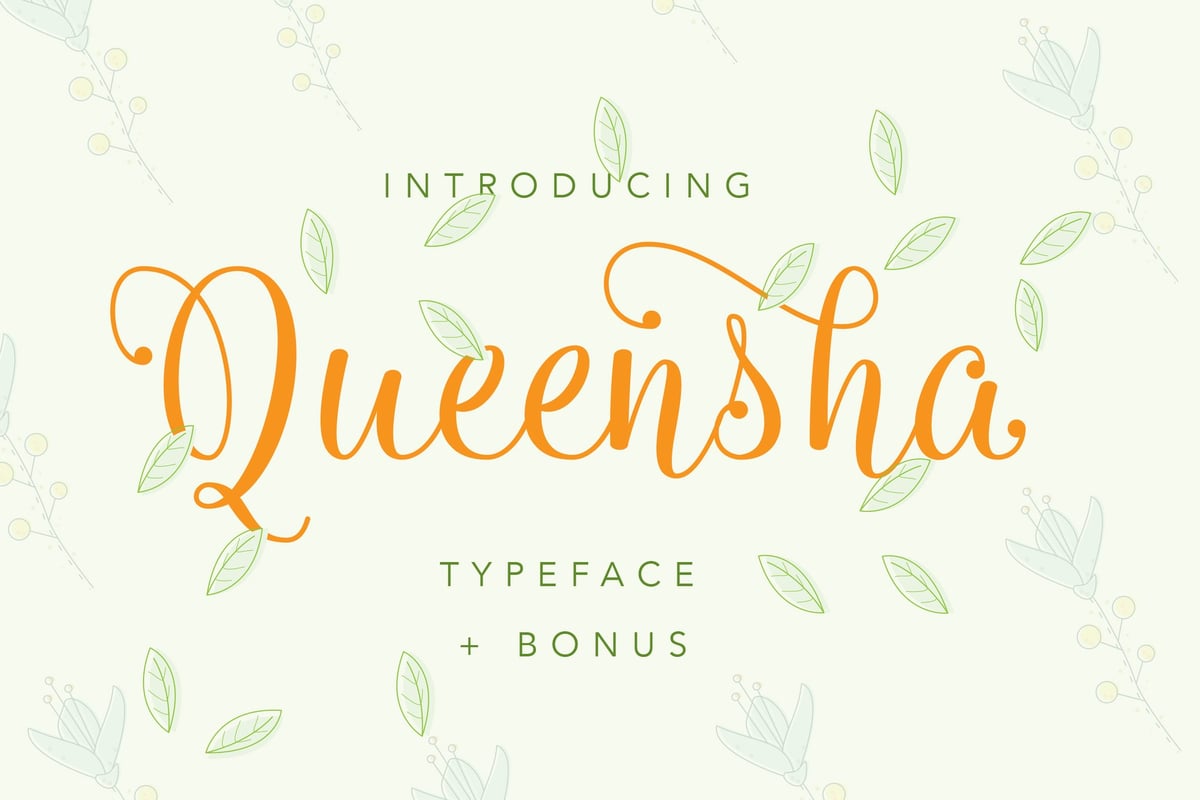
Queensha Typeface
Queensha is a stunning modern calligraphy typeface that blends classic copperplate elegance with contemporary style.
Born from the creative studio of Ianmikraz, Queensha bridges the gap between timeless tradition and modern design sensibility. Its beauty and elegant touch make it instantly versatile for a wide range of creative projects — from apparel branding to greeting cards and everything in between.
Packed with expressive character, Queensha features an impressive 350 glyphs and 161 alternate characters, giving you the flexibility to mix, match, and craft truly unique lettering compositions. The font includes full OpenType support and PUA Unicode encoding, so every alternate character is accessible without needing specialized software.
OpenType Features Include:
- Swash Alternates
- Standard Ligatures
- Stylistic Alternates
- Stylistic Sets
Queensha is ideal for apparel brands, greeting cards, painted design aesthetics, and any project calling for a natural, personal touch.